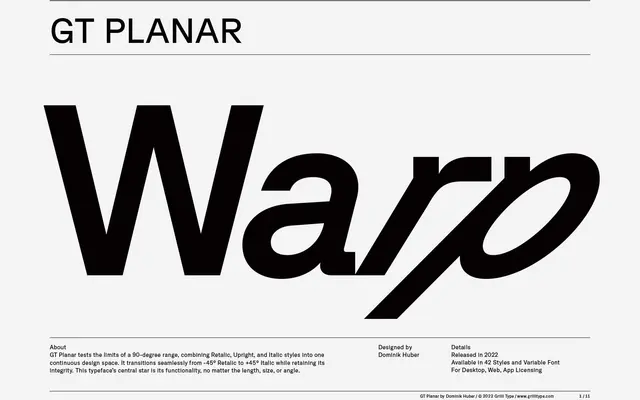
GT Planar
Grilli Type · Dominik Huber · 2022
Dominik Huber's slant-axis sans that runs from -45 degree Retalic through Upright to +45 degree Italic.
A 42-style sans by Dominik Huber, released in 2022 and built on a continuous slant axis. Grilli describe it as testing the limits of a 90-degree range, transitioning seamlessly from -45 degree Retalic to +45 degree Italic while retaining its integrity. Six weights from Thin to Black sit at every 15-degree increment, with flat shape, curved number and single-story a and g alternates.
Grilli describe it as testing the limits of a 90-degree range, combining Retalic, Upright and Italic styles into one continuous design space that transitions from -45 degrees Retalic to +45 degrees Italic.